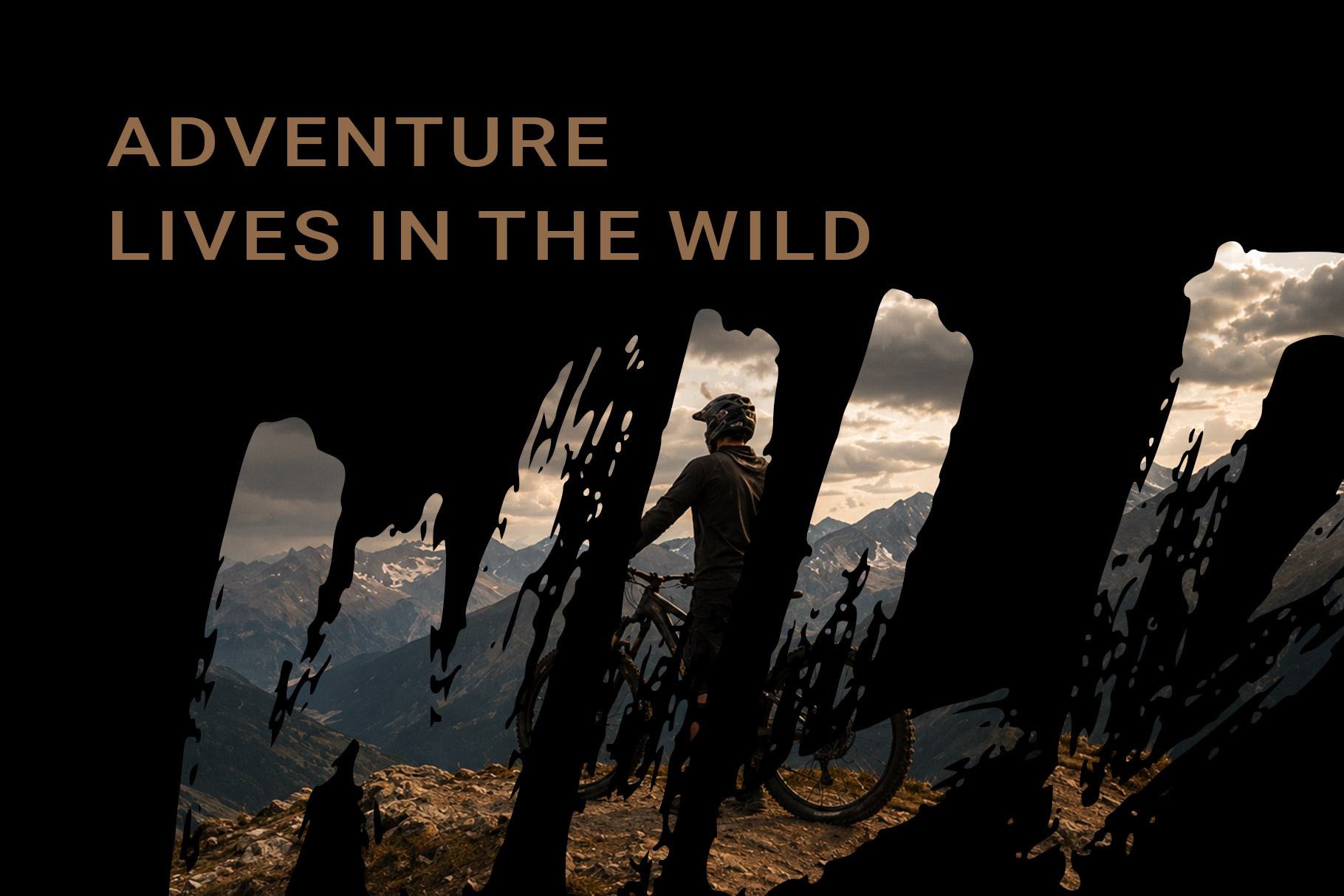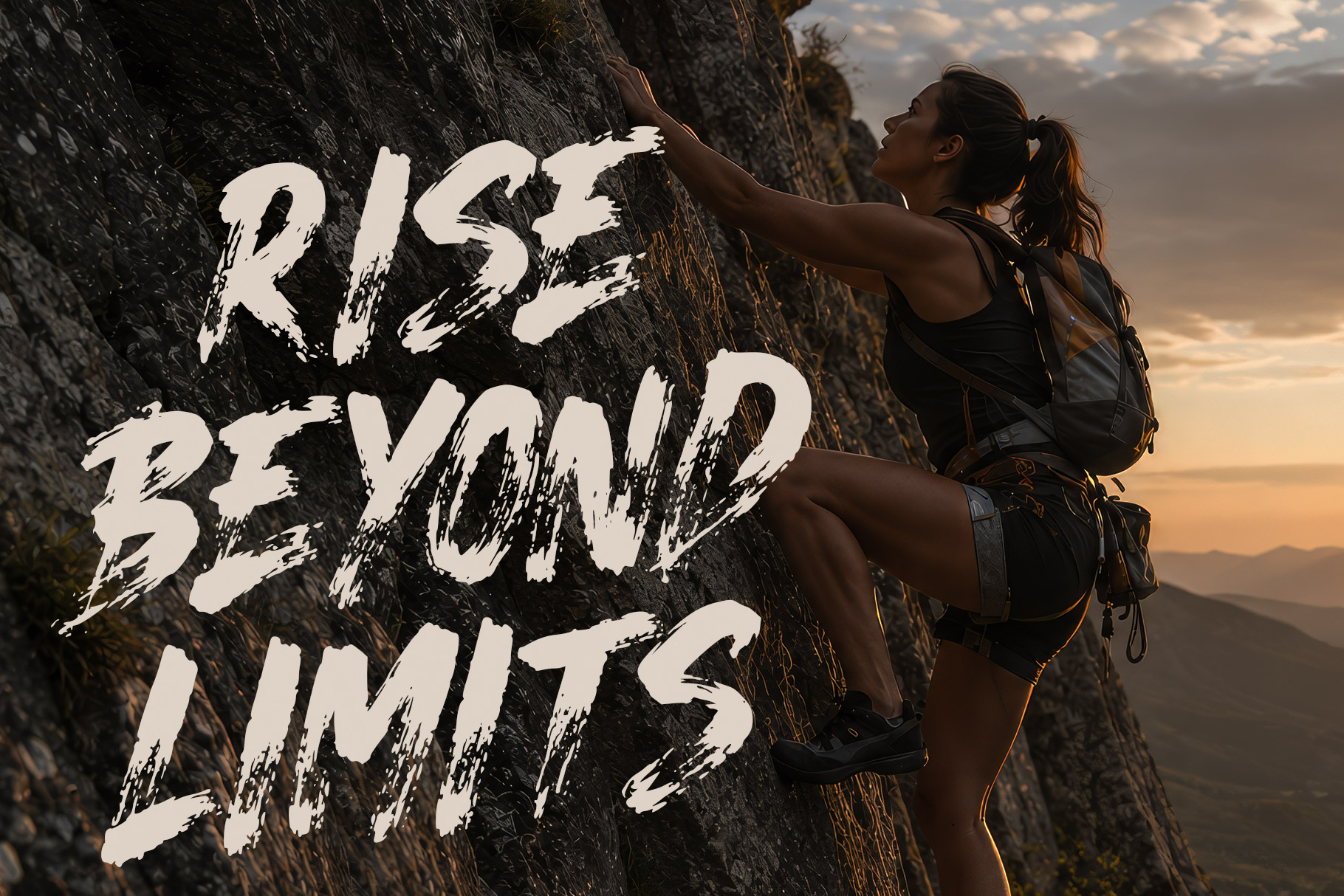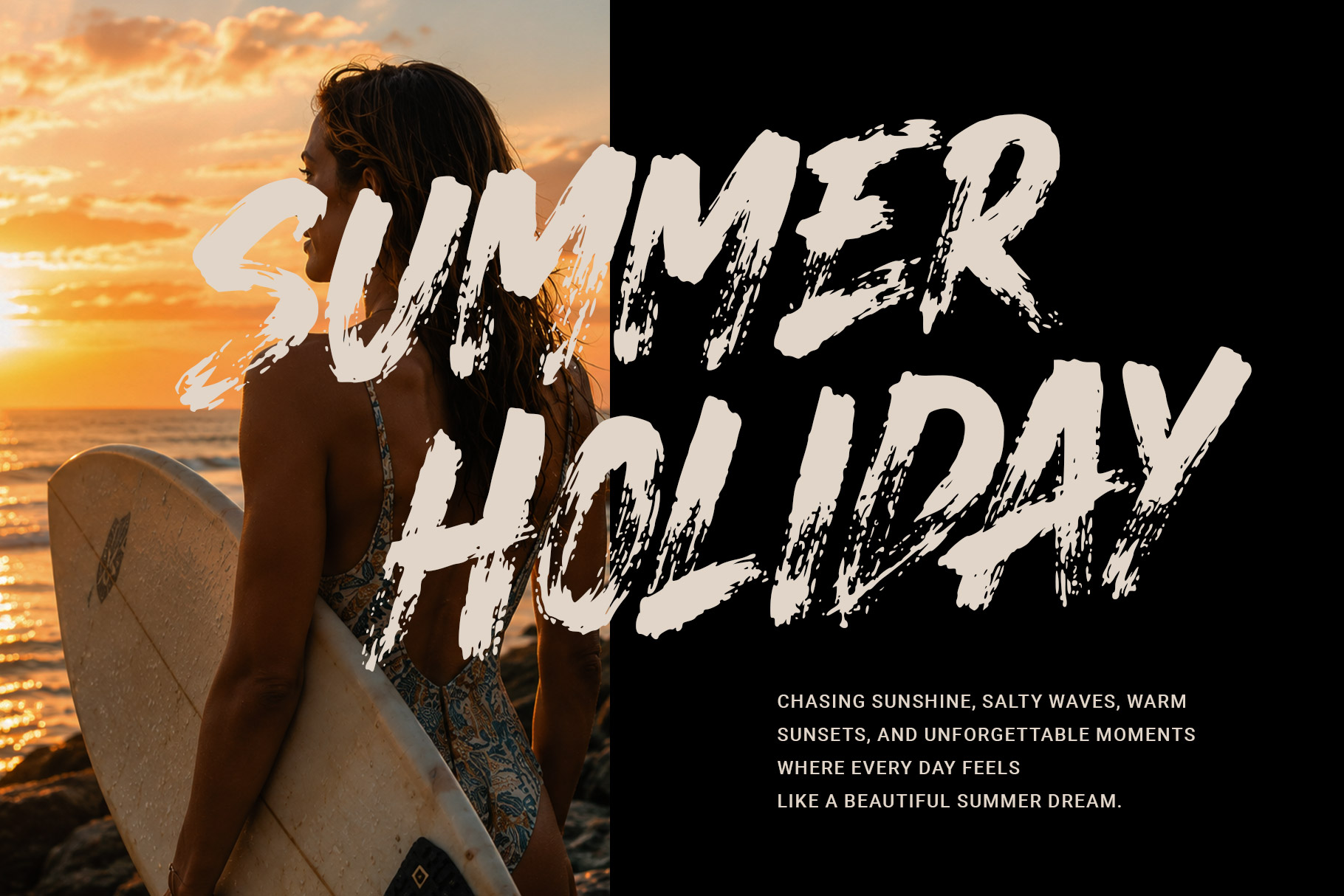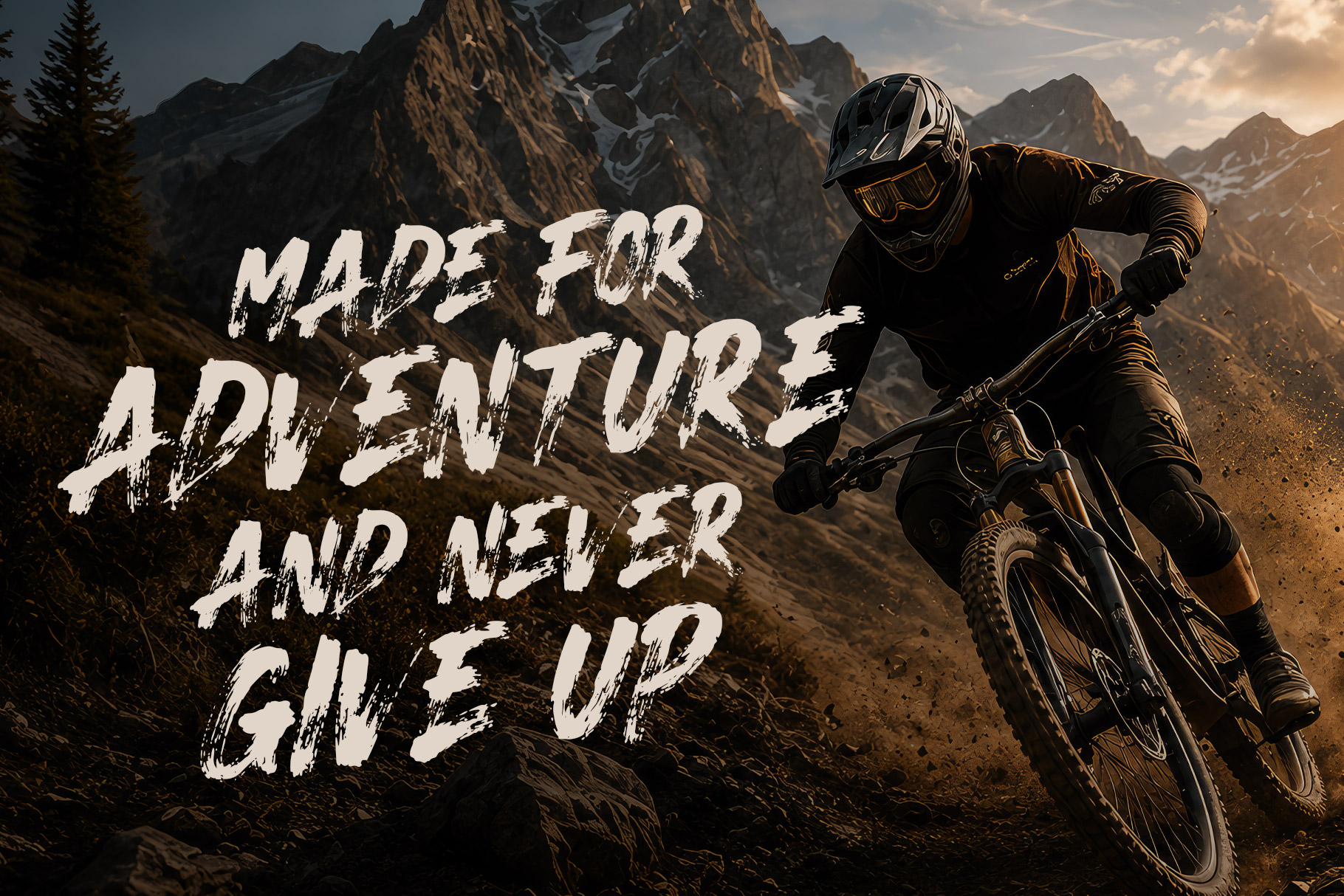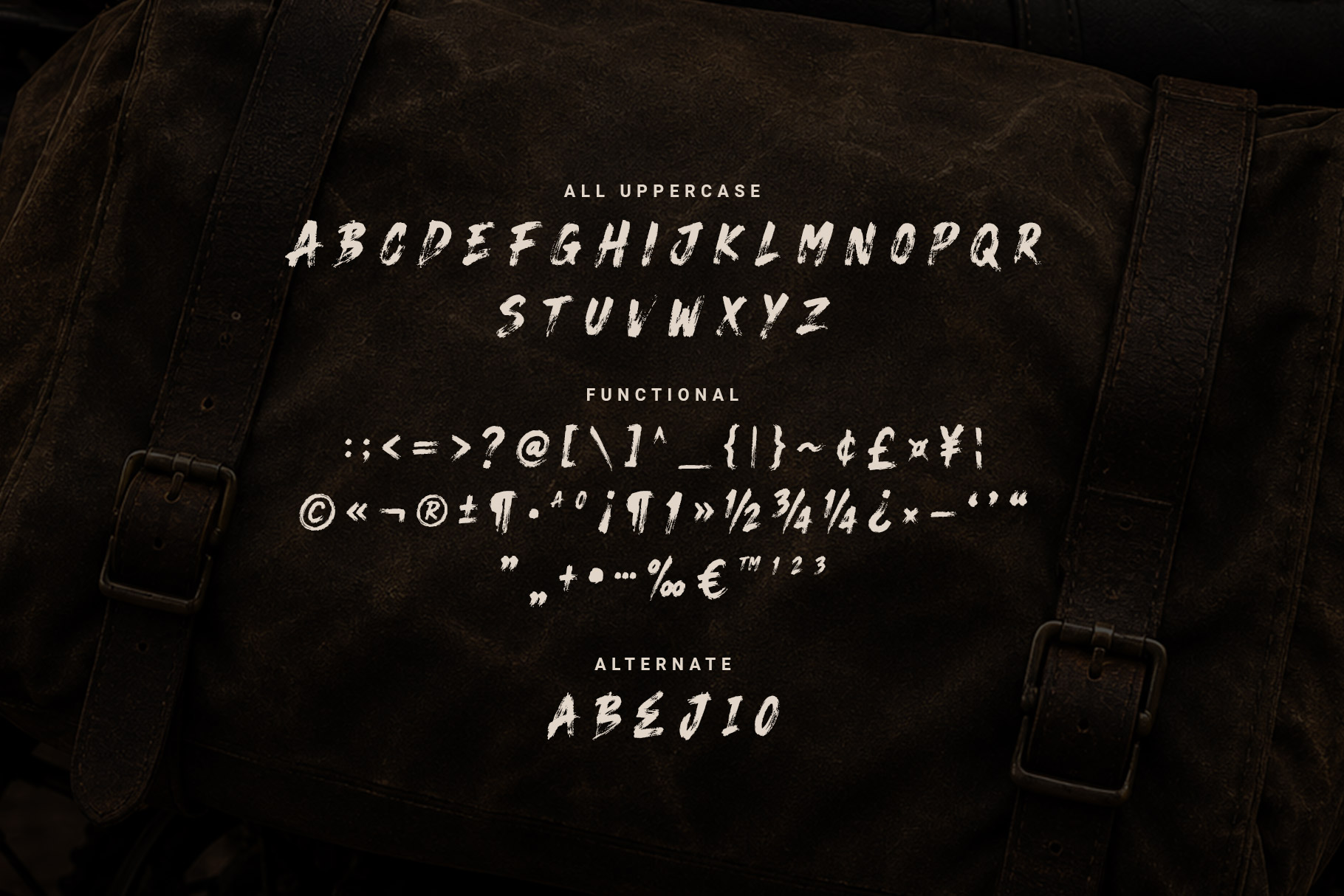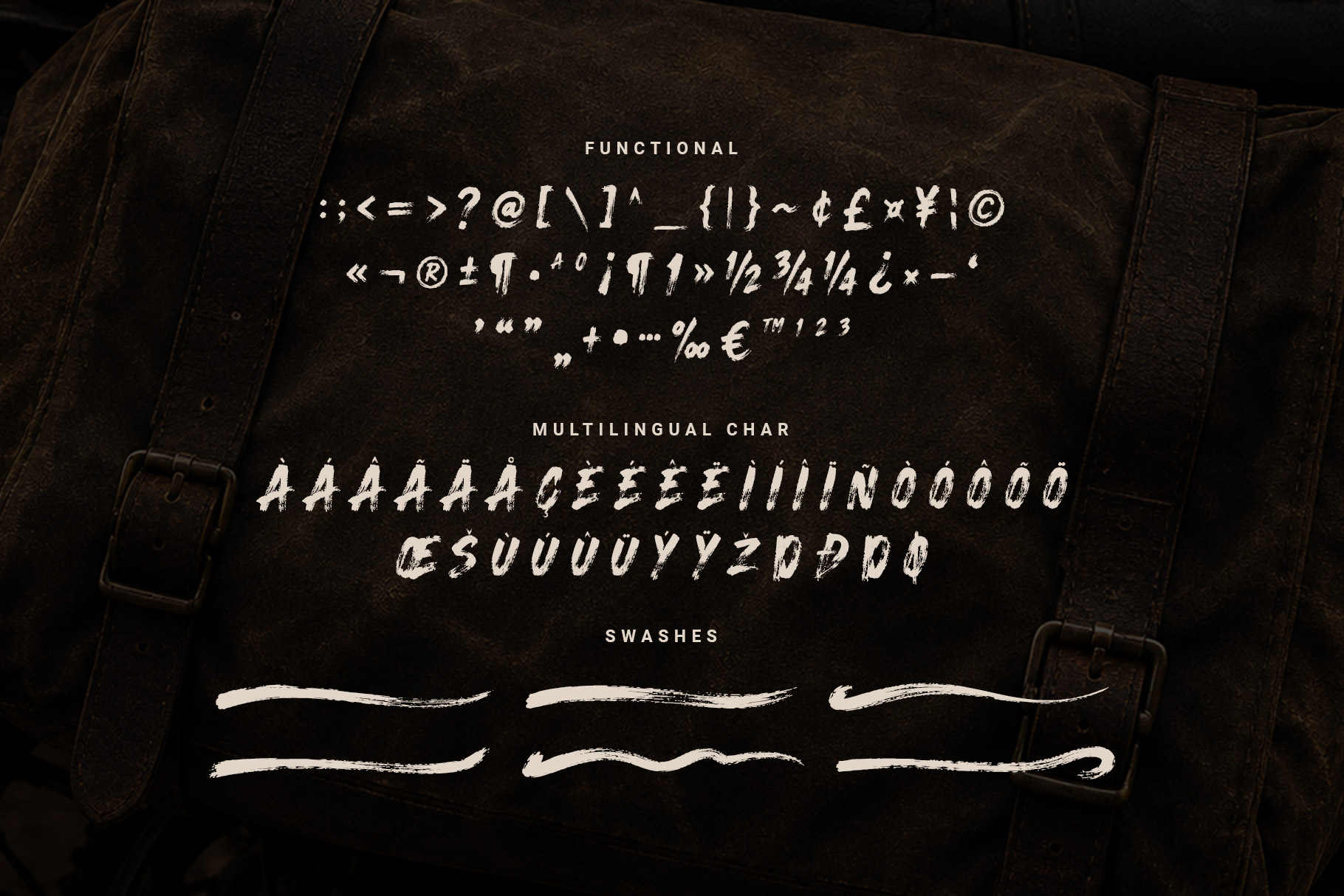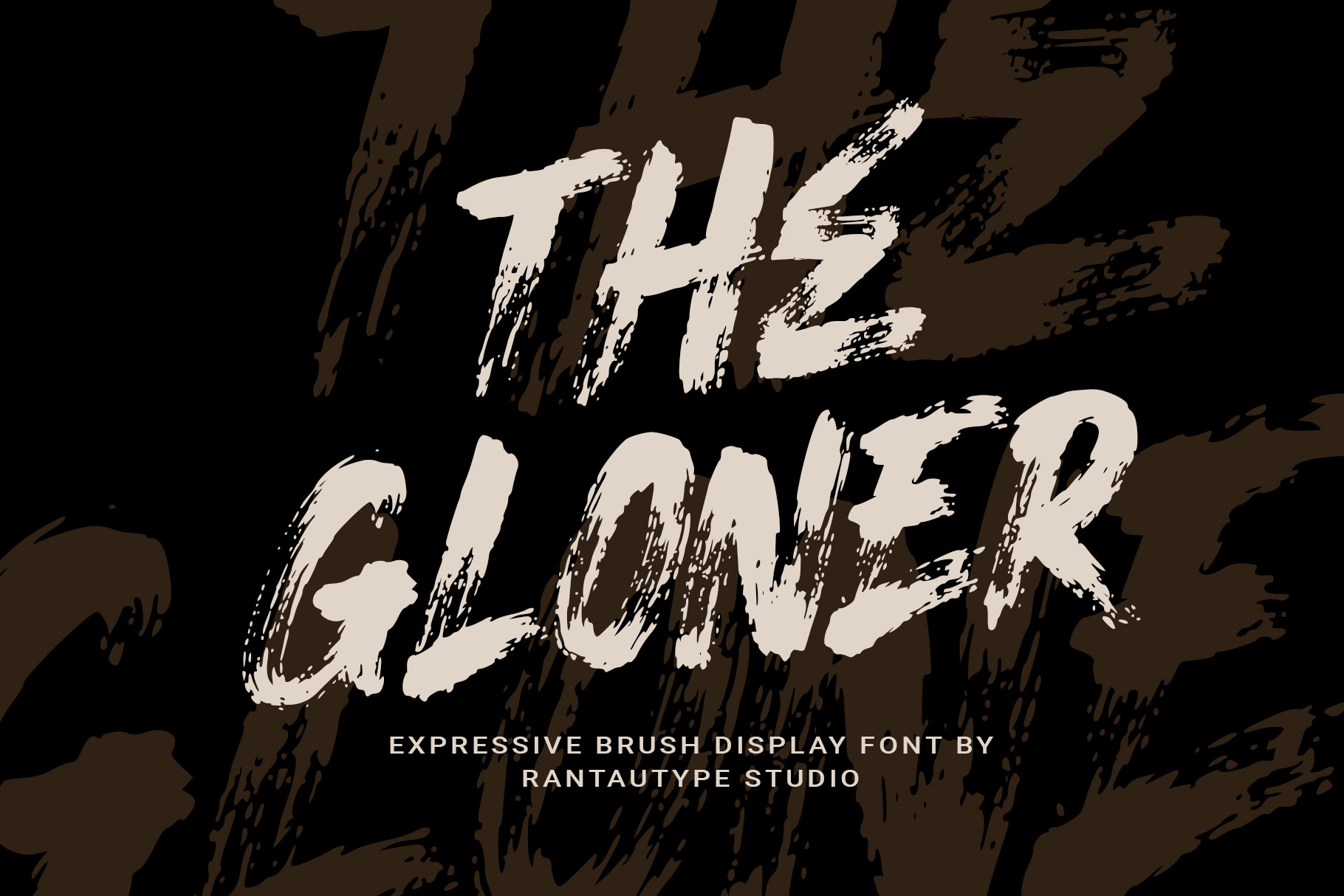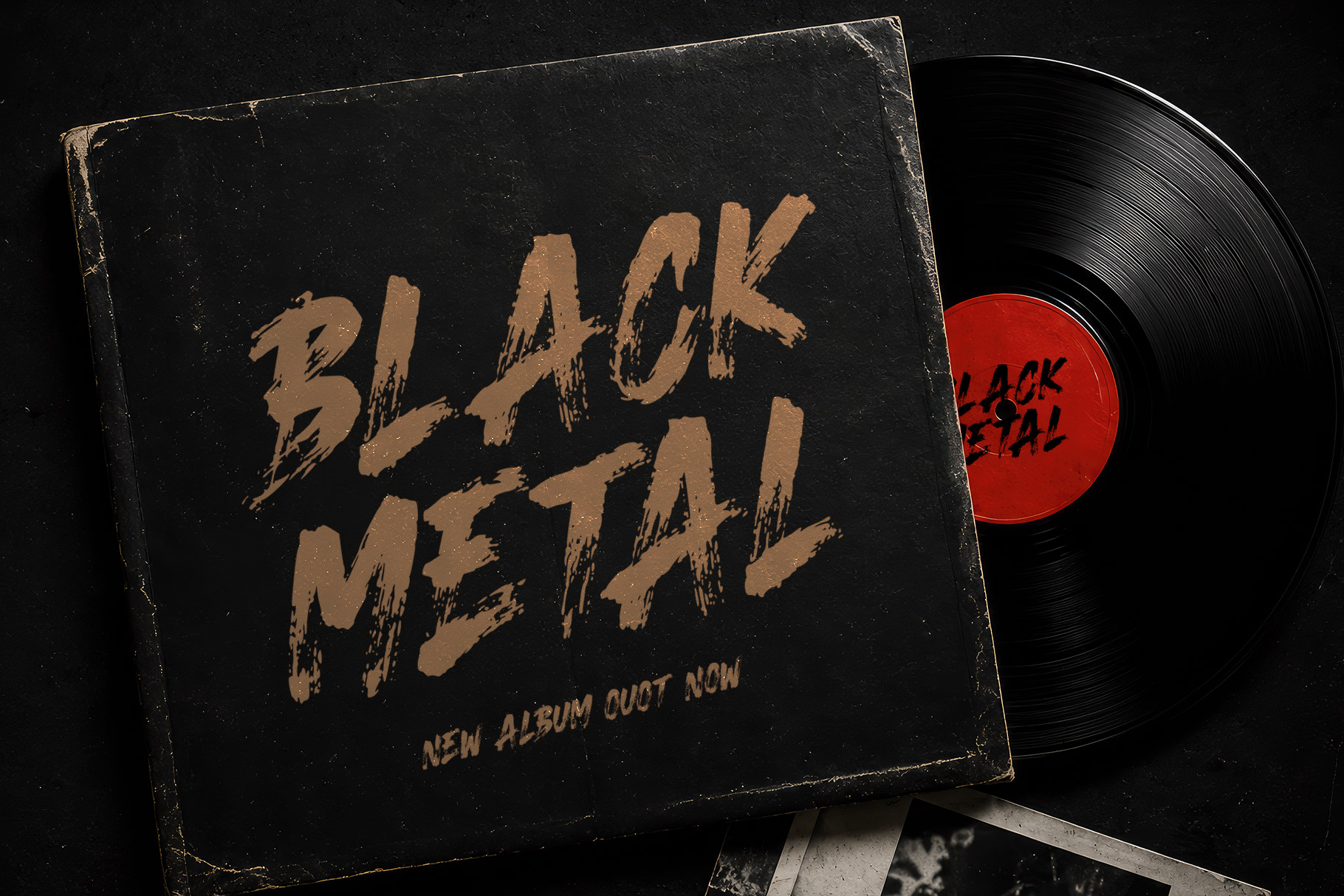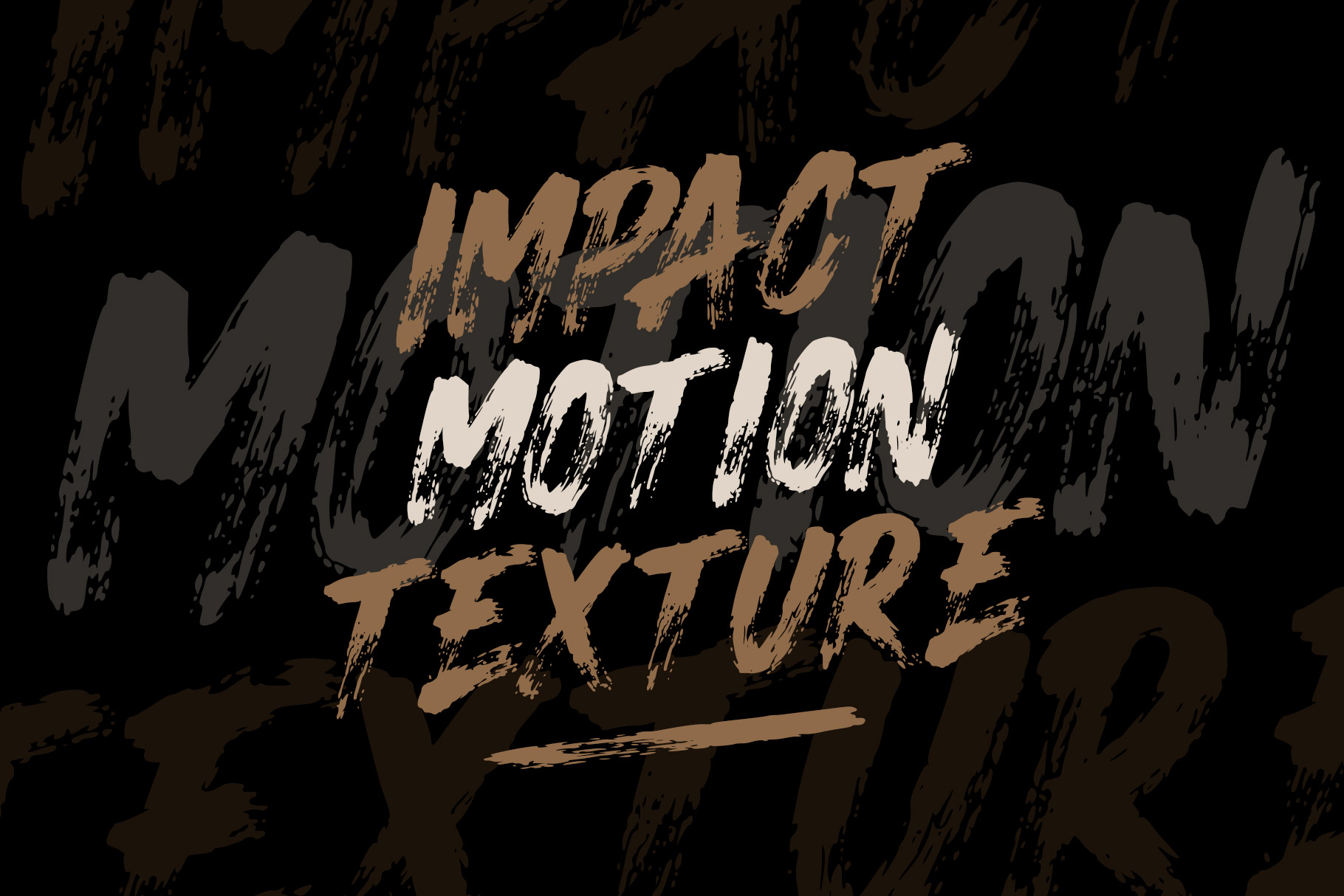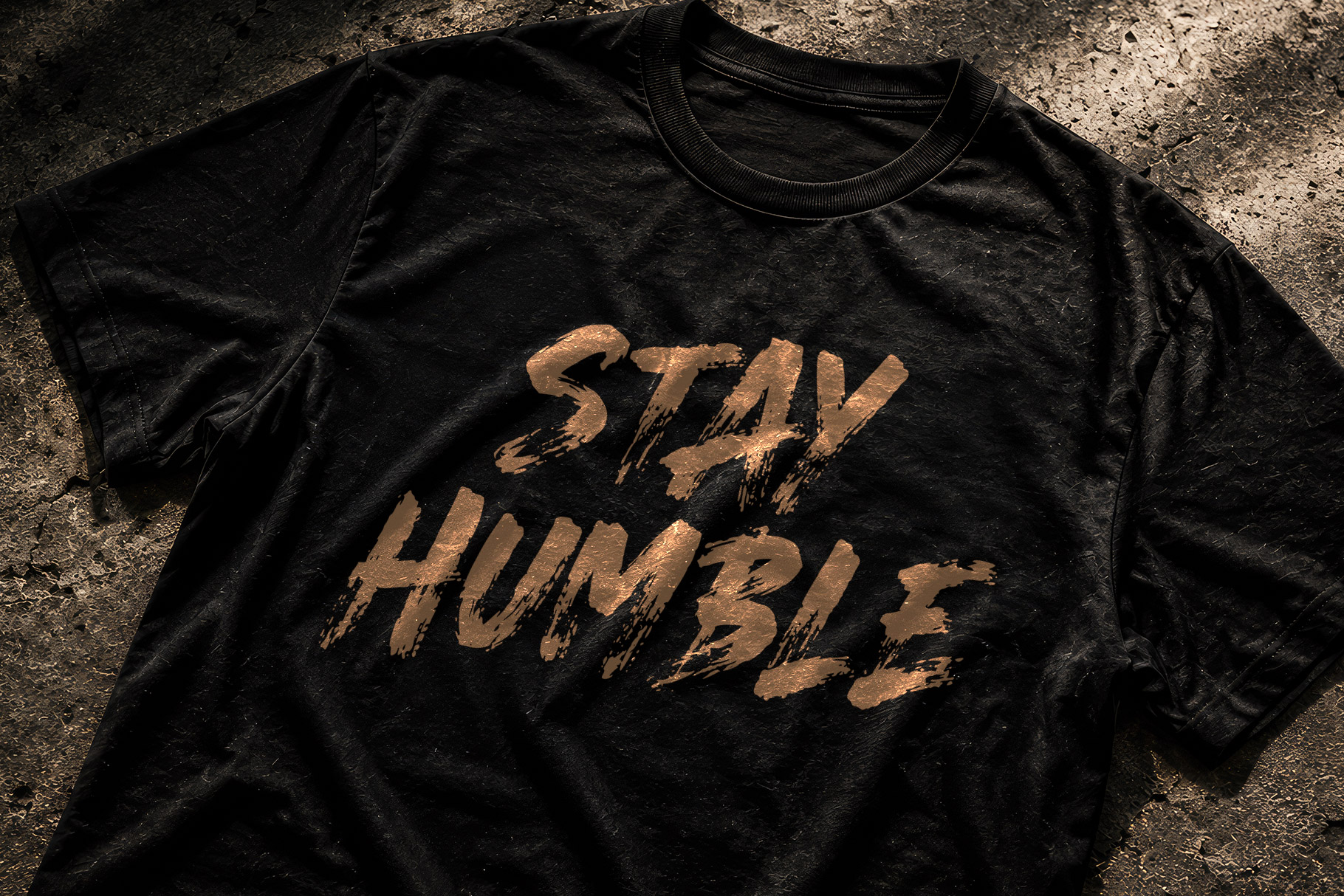
The Gloner is dynamic typeface inspired by the raw energy and spontaneous movement of hand-painted lettering. Its strong brush strokes, irregular edges, natural textures, and energetic character give every word an authentic handmade appearance.
The Gloner is a perfectly choice for any creative endeavor, creating, modern, lifestyle design such as logotype, title, cover, branding, invitations, display and magazine, social media posts, advertisements, printed quotes, product packaging, corporate brand, product designs, labels, photography, watermarks, special events and any other project with modern touch.